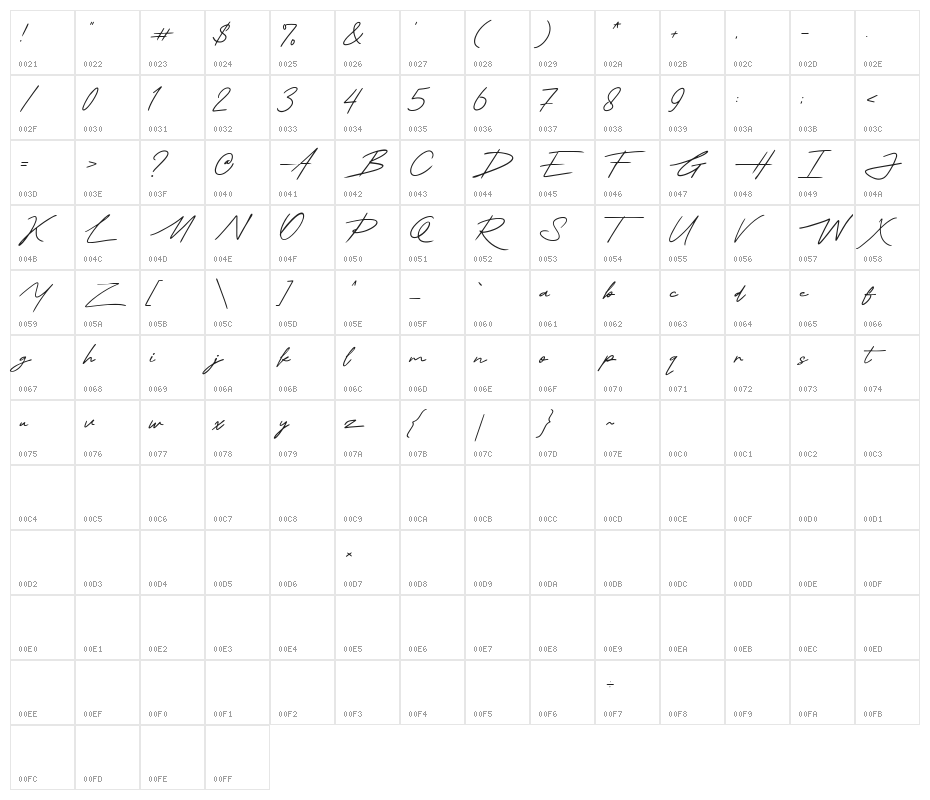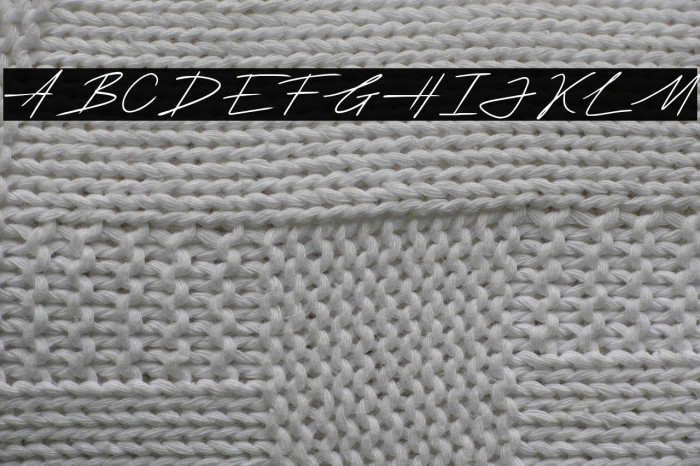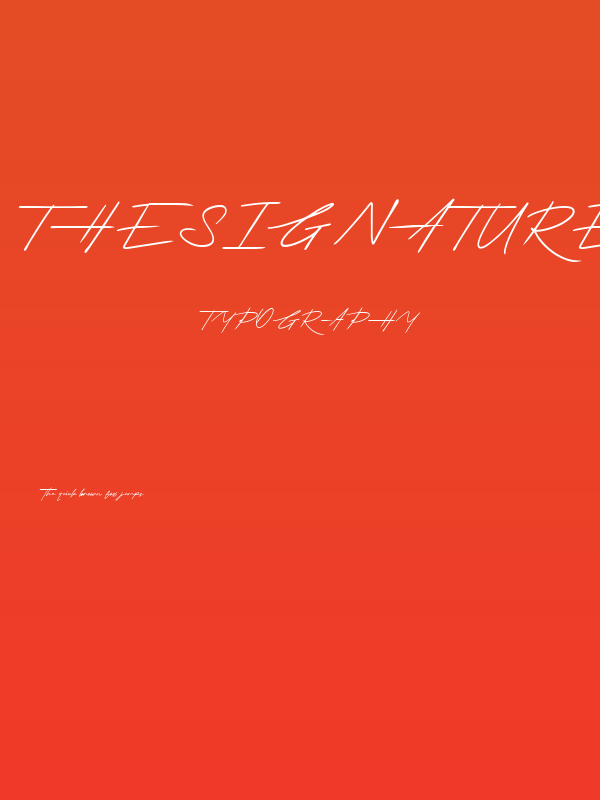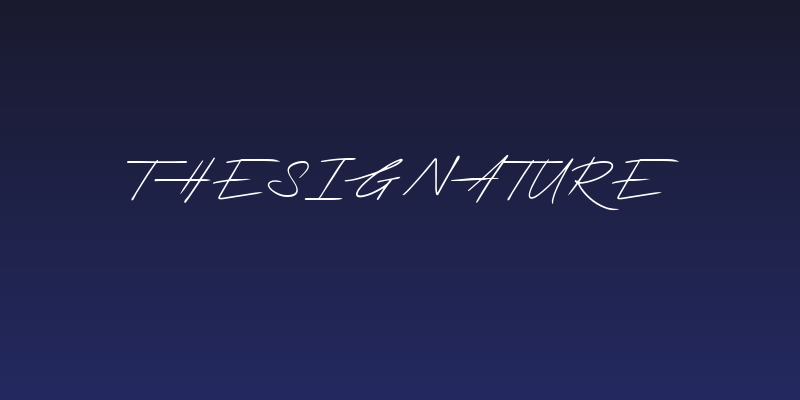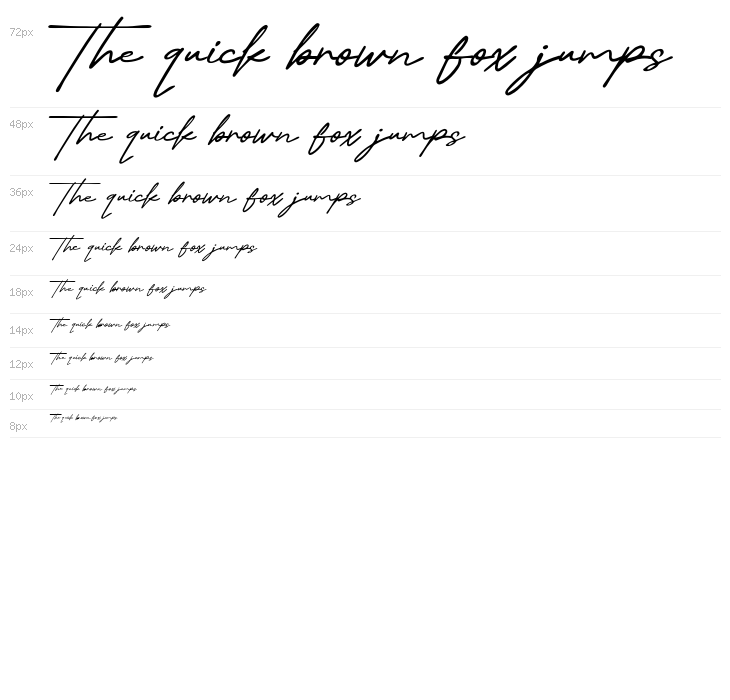
Thesignature Font
Thesignature Description
This font features a dynamic and fluid script style, characterized by its elegant and flowing letterforms. The uppercase letters are slightly more angular, providing a modern twist to the classic cursive style. The lowercase letters are smooth and connected, creating a seamless flow that mimics natural handwriting. The numerals maintain the same fluidity, ensuring consistency across all characters. Special characters are integrated seamlessly, maintaining the overall aesthetic. This font exudes a sense of sophistication and personal touch, making it ideal for projects that require a handwritten feel.